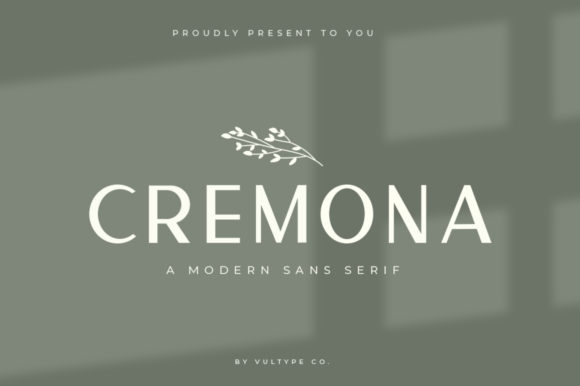
Introducing Cremona Font, the epitome of elegance and sophistication in the world of typography! Crafted by the renowned Vultype, this clean and minimal sans serif font is guaranteed to captivate your senses and elevate your design projects to new heights.
With its two weights, Regular and Bold, Cremona offers you the ultimate flexibility to create stunning visuals that leave a lasting impression. Whether you're aiming for a delicate and refined look or a bold and impactful statement, this font has got you covered.
Imagine the power of romance and charm infused into every letter, every word, and every sentence. Cremona Font effortlessly adds a touch of magic to your designs, making them stand out from the crowd and leaving your audience mesmerized.
Are you tired of generic fonts that fail to convey your message effectively? Look no further! Cremona is specifically designed to evoke emotions and create a strong connection with your audience. Its graceful curves and sleek lines effortlessly guide the reader's eye, ensuring a seamless reading experience that keeps them engaged from start to finish.
Whether you're designing a wedding invitation, a logo for a luxury brand, or a captivating headline for a magazine spread, Cremona Font is your secret weapon. Its versatility knows no bounds, allowing you to effortlessly adapt it to any project or style, while still maintaining its unique charm.
Say goodbye to dull and uninspiring typography! Cremona Font breathes life into your designs, adding a touch of elegance and sophistication that will leave a lasting impression on anyone who lays eyes upon it. Let your creativity soar as you explore the endless possibilities this font has to offer.